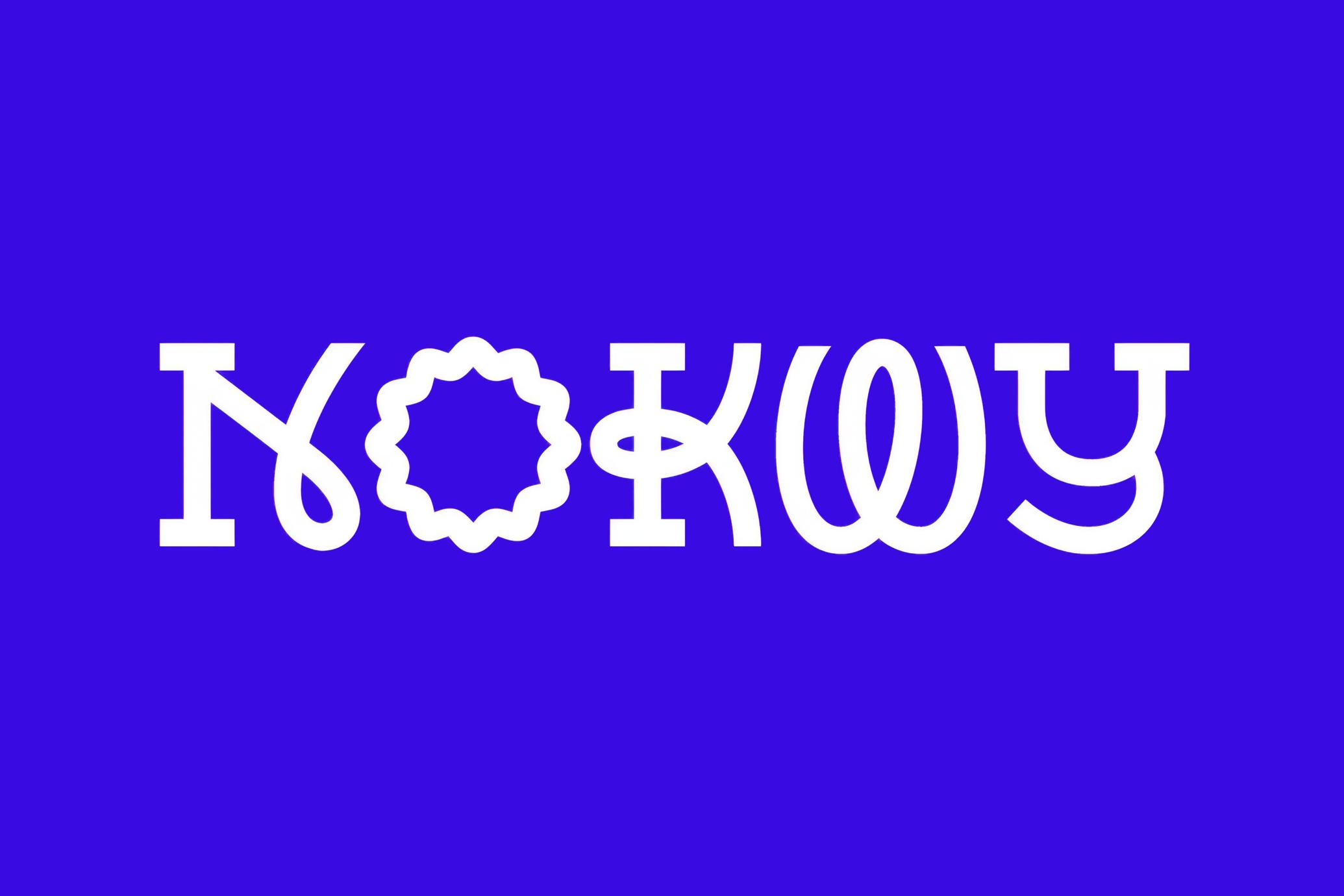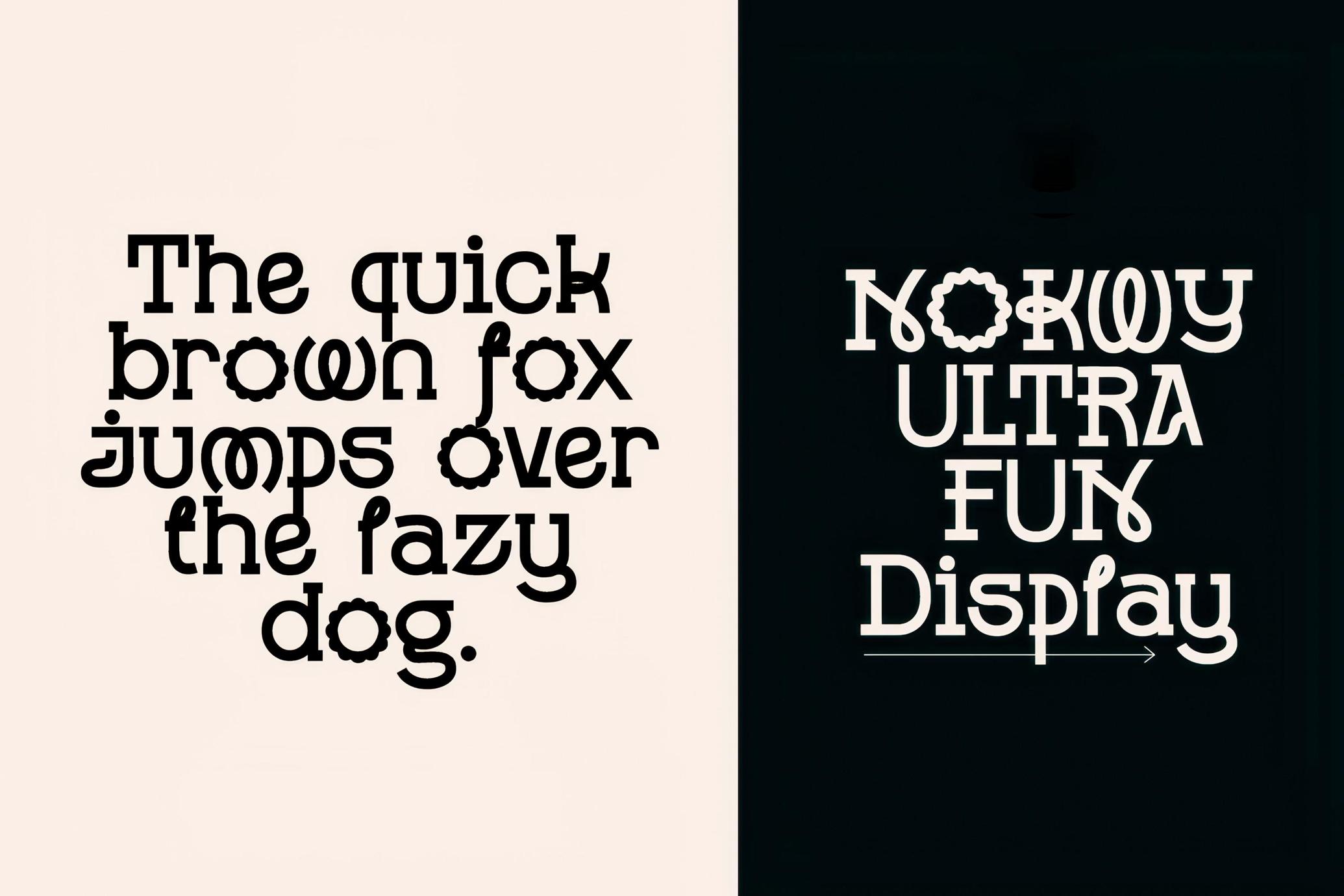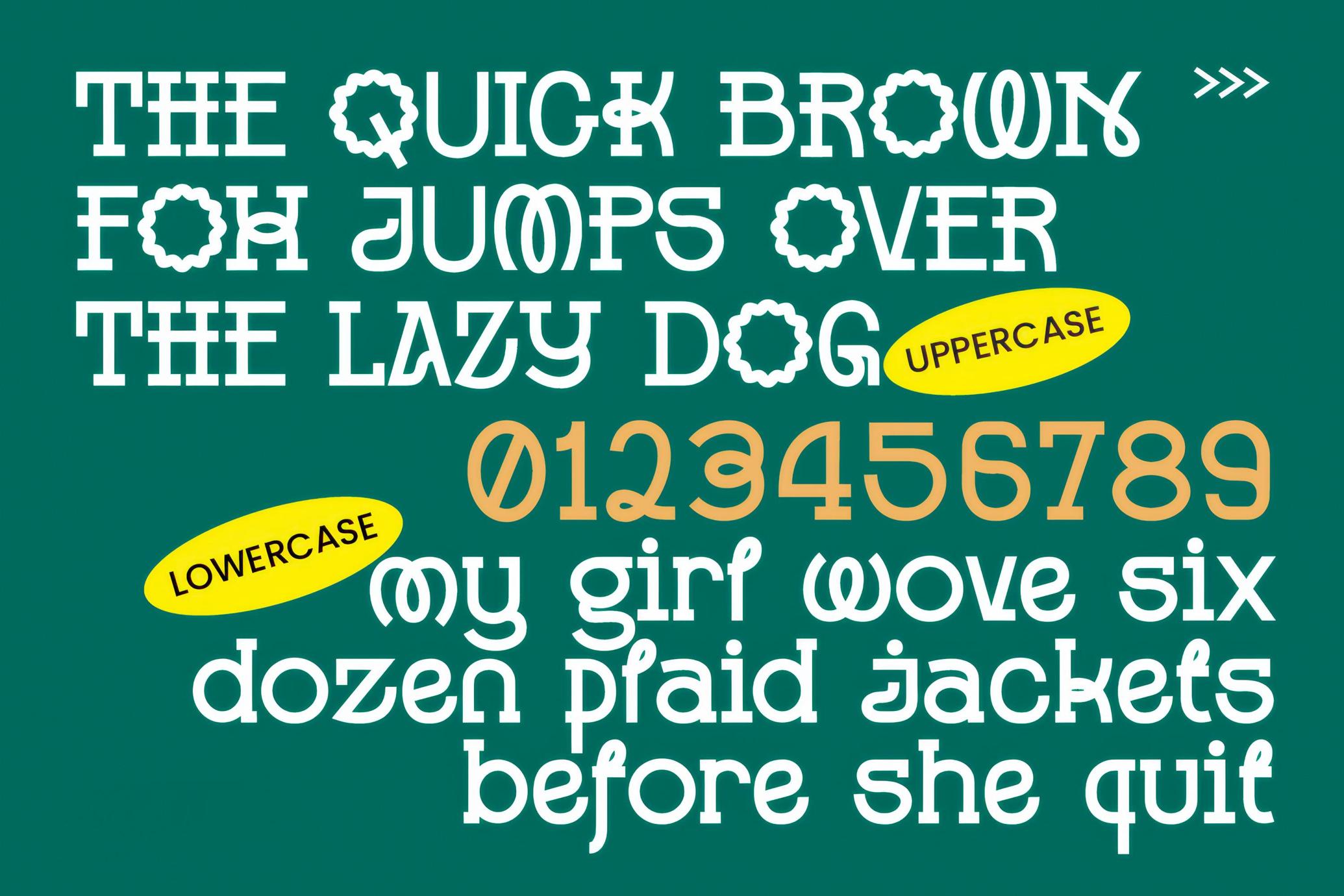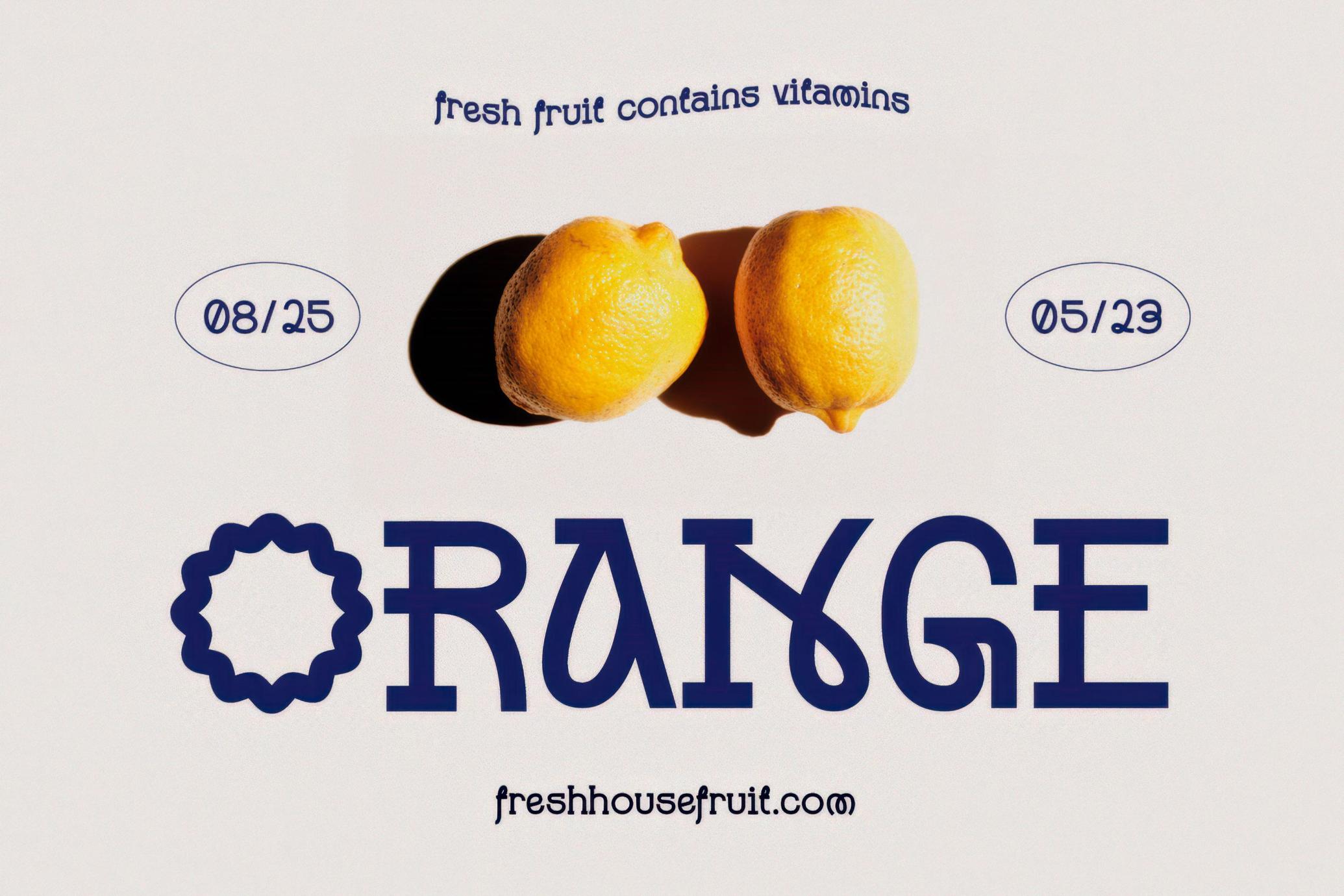
Nokwy | Ultra Fun Display Font
Nokwy is a playful, modular display typeface rooted in postmodern graphic design, with strong echoes of bubble type, retro-futurism, and Y2K eclecticism. Its exaggerated character shapes, whimsical alternates, and geometric construction reflect the "fun-font revival" trend often seen in streetwear branding, children's editorial design, or 90s-inspired visual identities.
When exploring its full character set, don't fear to go wild. Nokwy is Nickelodeon meets brutalist web, with a hint of mid-2000s mascot culture and DIY print aesthetics, plus plenty of ligatures and alternates to make it 200% fun to play. This font would fit comfortably in branding for youth fashion, creative apps, educational materials, or packaging leaning into expressive maximalism.